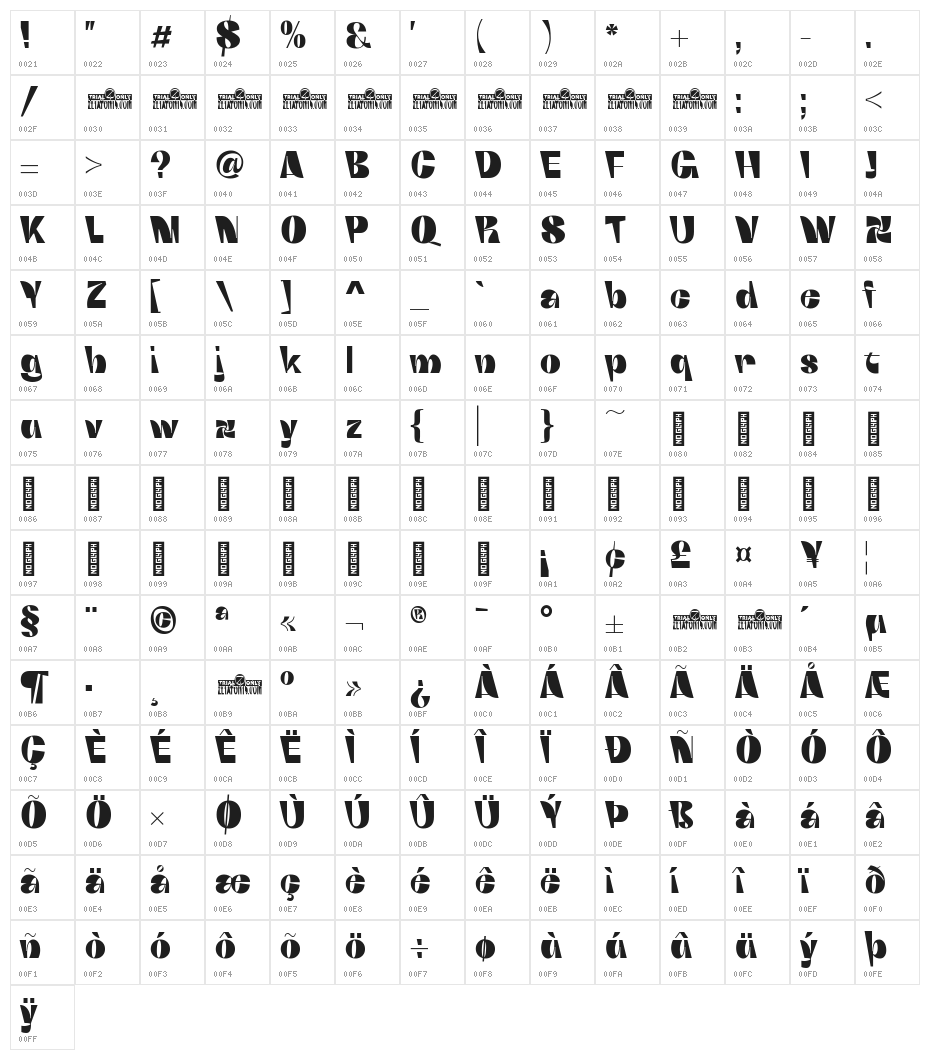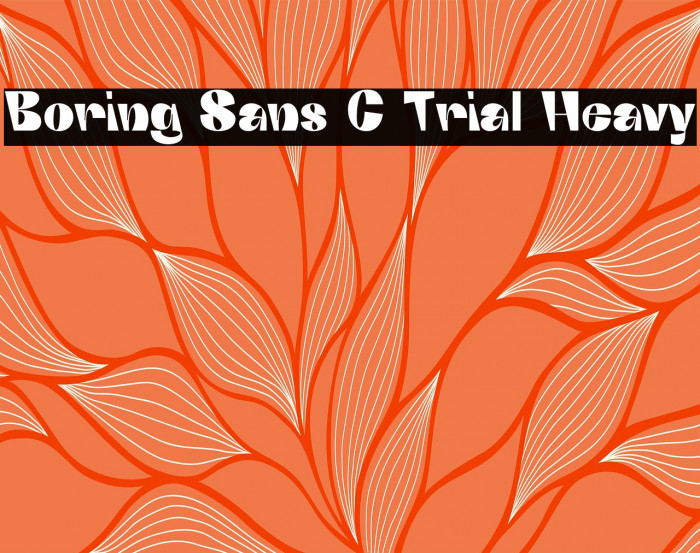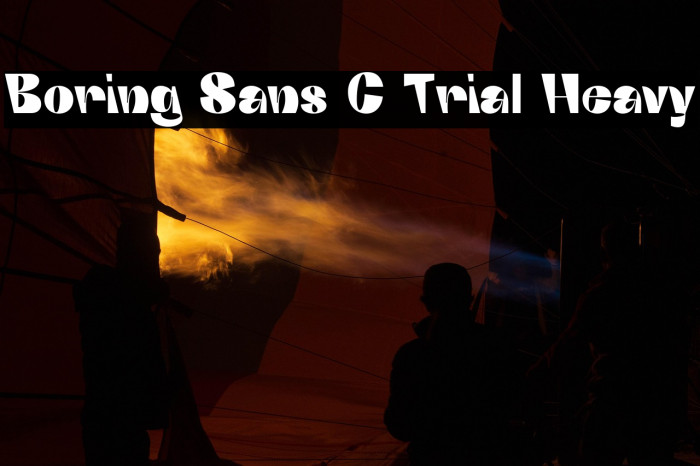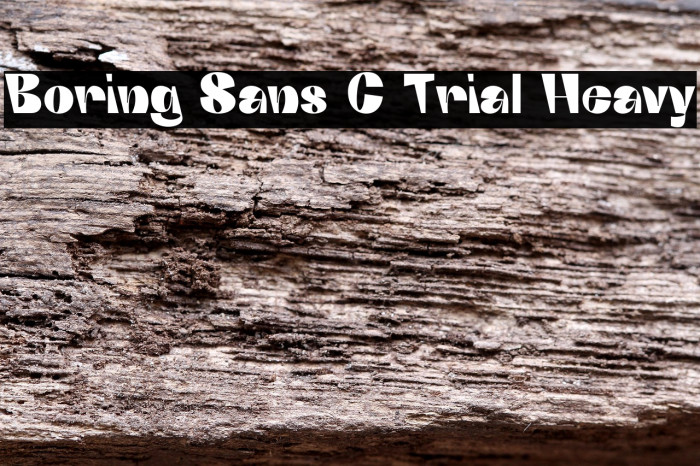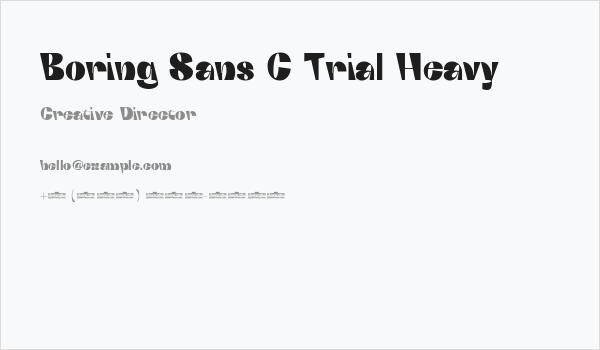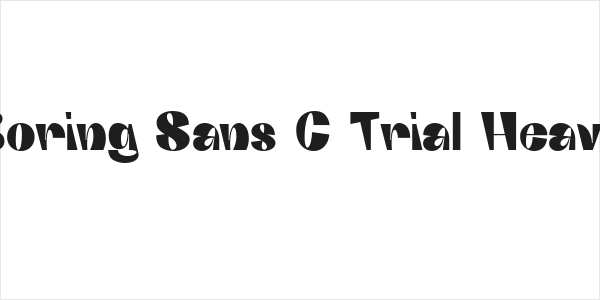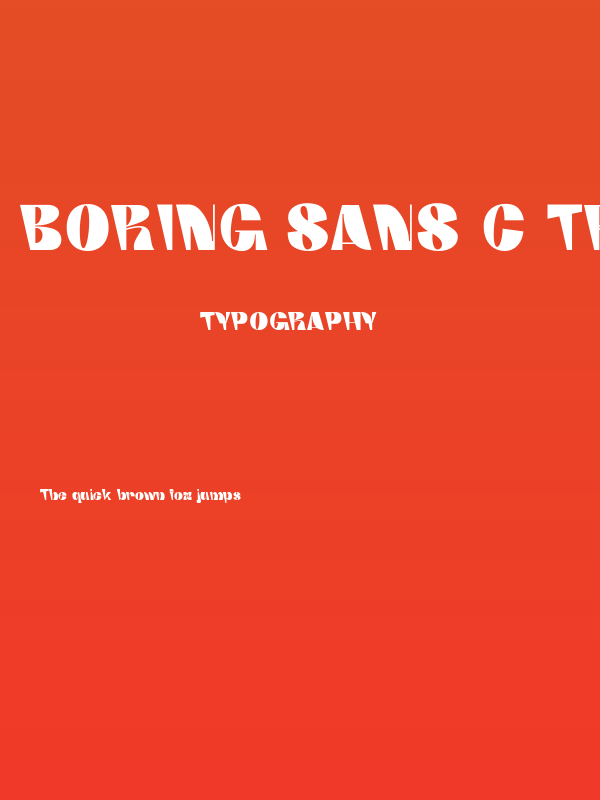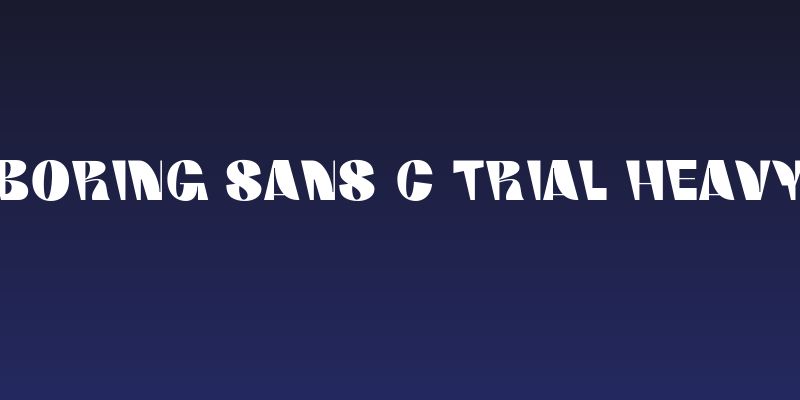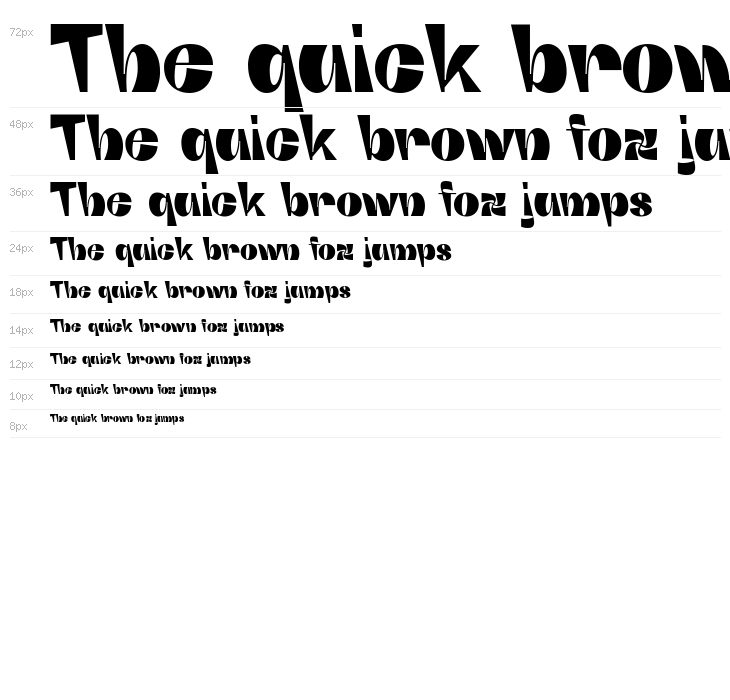
Boring Sans C Trial Heavy Font
Boring Sans C Trial Heavy Description
This font exhibits a bold and playful style with a unique, heavy weight that commands attention. The characters are designed with exaggerated curves and angles, giving them a dynamic and energetic appearance. The uppercase letters are particularly striking, with a strong presence that makes them ideal for headlines or titles. The lowercase letters maintain the same boldness, ensuring consistency across text. The numbers and special characters are equally bold, making them stand out in any design. Overall, this font is perfect for projects that require a fun and impactful visual element.
| Proposed Projects | This font is perfect for posters, branding, advertising, and any project that requires a bold and playful aesthetic. |